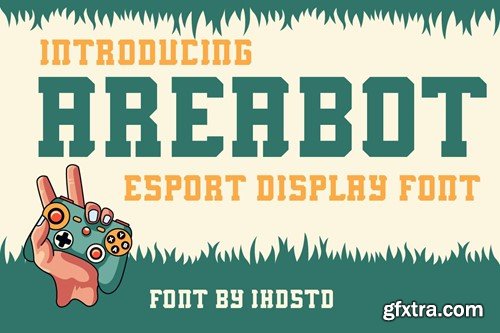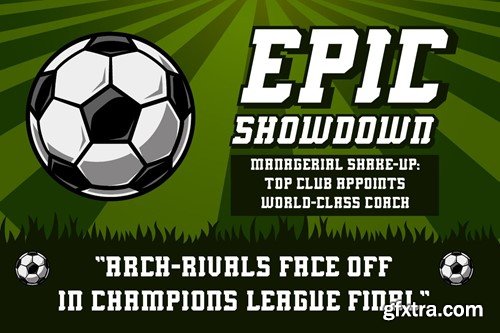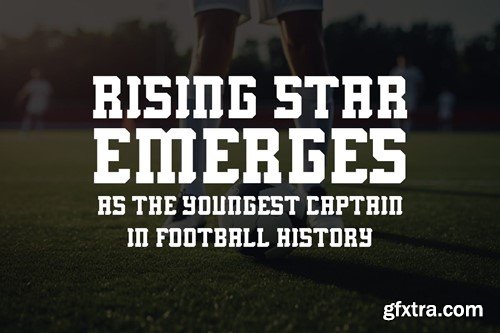
Areabot Esports Display Font D4P8M6N
Areabot Esports Display Font
Areabot Esport Display is perfect for most all aspects of graphic design, from creating a unique display layout, a quirky logo design and even long-form content. Download now and go get adventurous! What you get : 1 Otf File, 1 TTF File The thumbnail Cover Not Includes Regards IHDSTD Reselling, or distributing this font, without written permission from IHD Studio, is prohibited